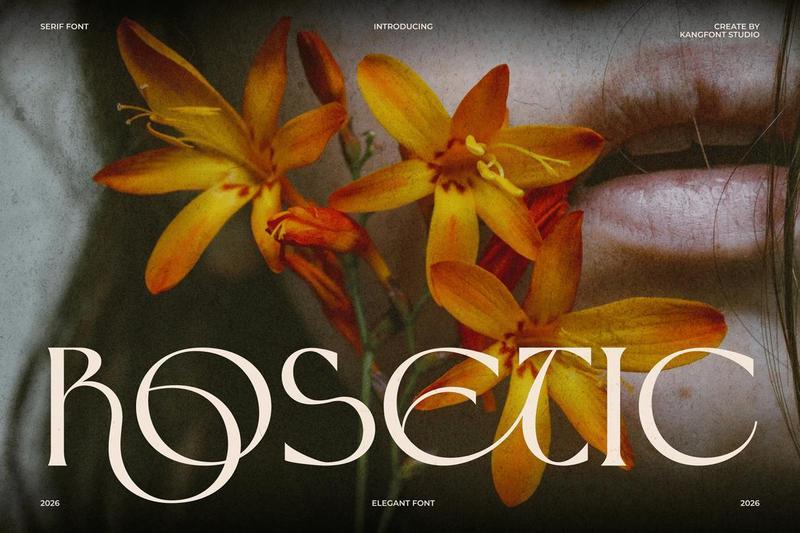
Rosetic Elegant Serif Font 6K9Q2J6
Introducing Rosetic, an elegant serif font crafted for beautiful and sophisticated design work. Rosetic blends classic serif structure with distinctive ligatures and refined letterforms, giving your projects a unique, high-end aesthetic.
Whether you’re designing luxury branding, editorial layouts, wedding invitations, fashion lookbooks, or premium packaging, Rosetic delivers timeless elegance with a modern edge.
* Stylistic ligatures & alternates
**Perfect For:**
* Luxury brand identity & logo design
* Wedding & event stationery
* Editorial & magazine layouts
* Product packaging & labels
* Social media graphics & posters
* Interior & lifestyle branding
**Font Highlights:**
* High-contrast thick & thin strokes
* Elegant stylistic ligatures
* Art Nouveau-inspired letterforms
* Versatile for both display and headline use